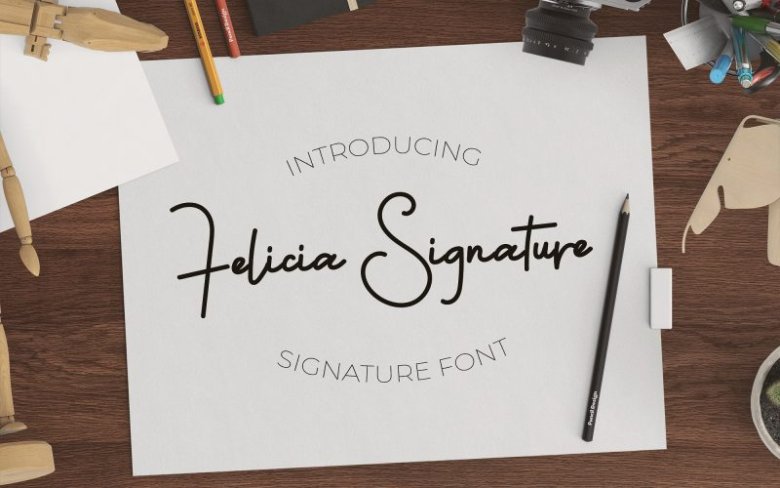
Felicia Signature Font
Hello world..!! This is a textured handwritten font. It allows you to create stunning and easy hand-lettering in an instant. Introducing Felicia Handwritten Font! Felicia designed and shared by Vasgaz Creative. Felicia Signature Font – This font is designed for font users who like the Modern Character. , so it is suitable for signature, pearl word, book title, magazine title, invitation card, or works that require original handwriting character. No less important this font is equipped with Alternative Swash and ligature.
Can be used for various purposes.such as headings, logos, wedding invitation, t-shirt, letterhead, signage, lable, news, posters, badges etc.